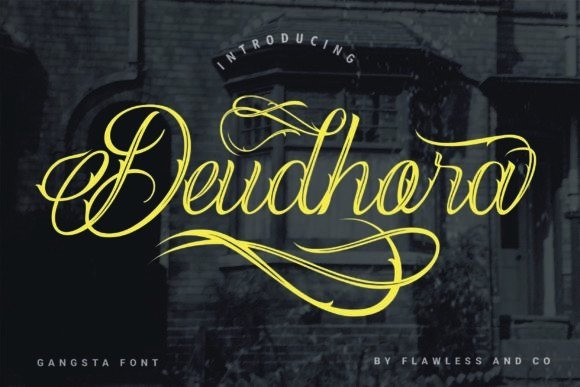
Deudhora Font
Deudhora Font is a superb script that gives a unique touch to any design you create! Don’t forget to try out the connected letters or swashes in some characters to get the authentic and elegant style of Deudhora. This font is PUA encoded, which means you can access all of the glyphs and swashes with ease!